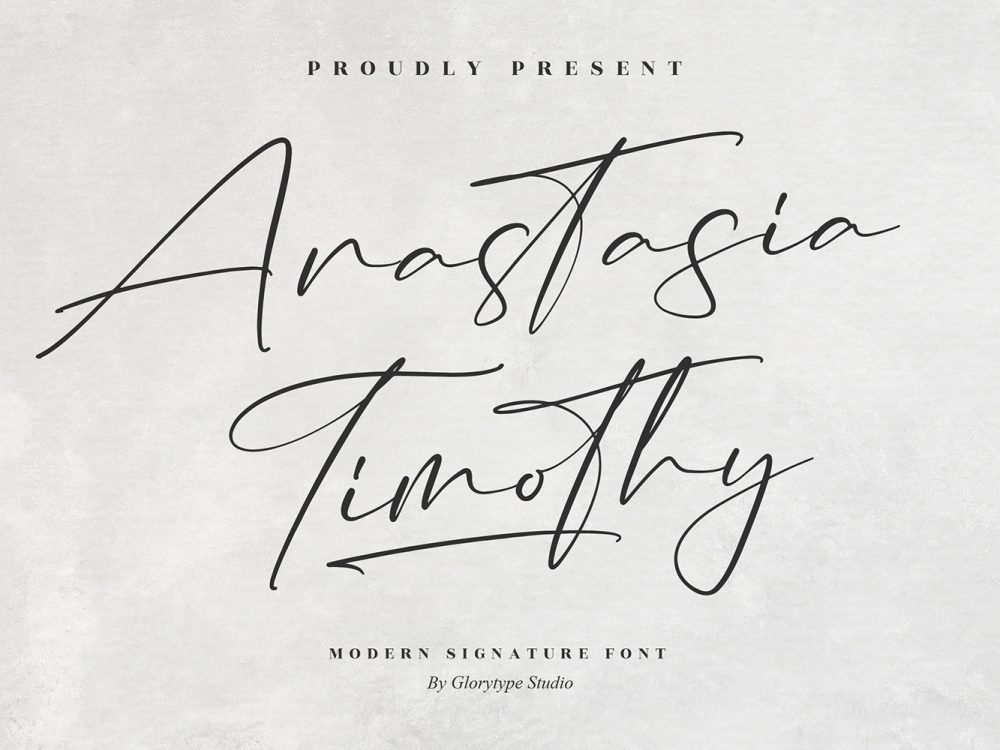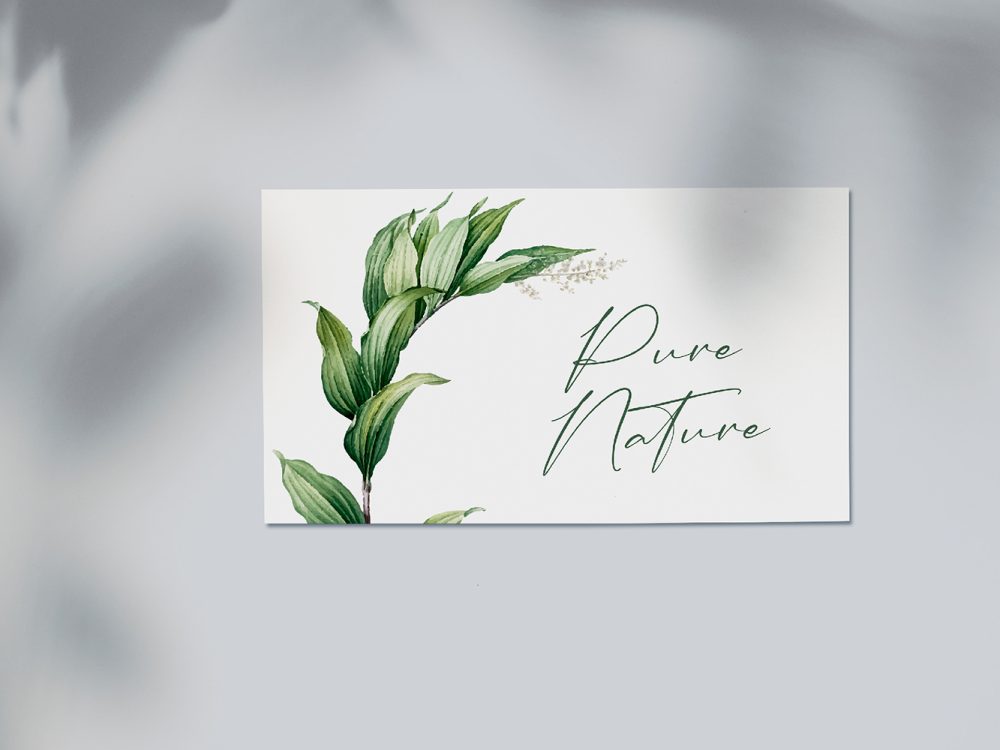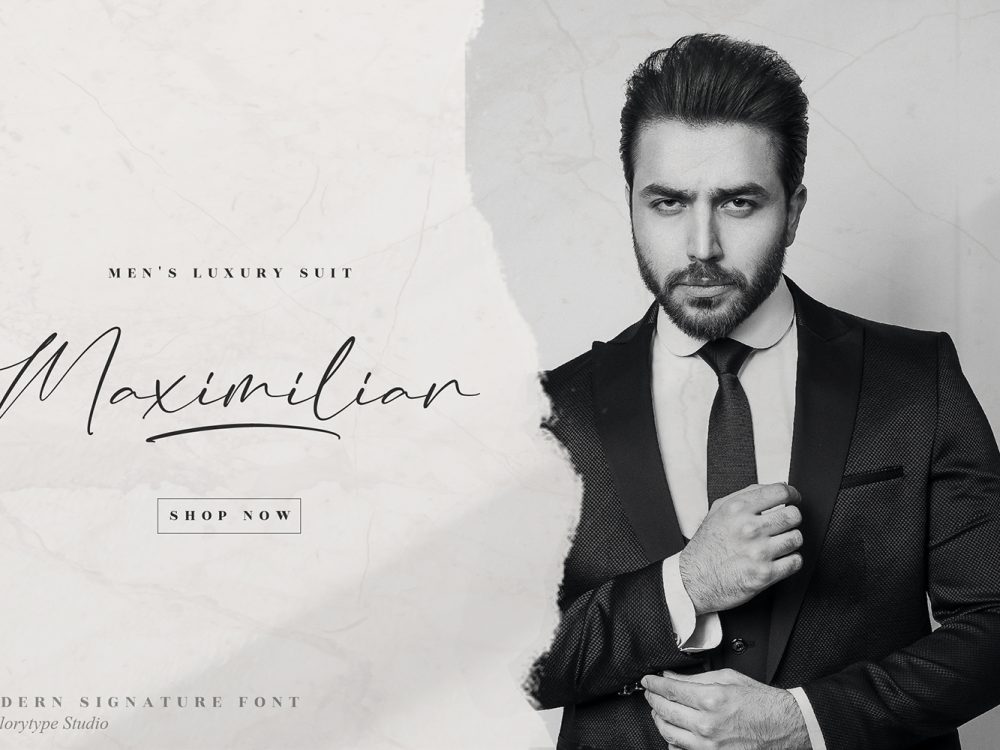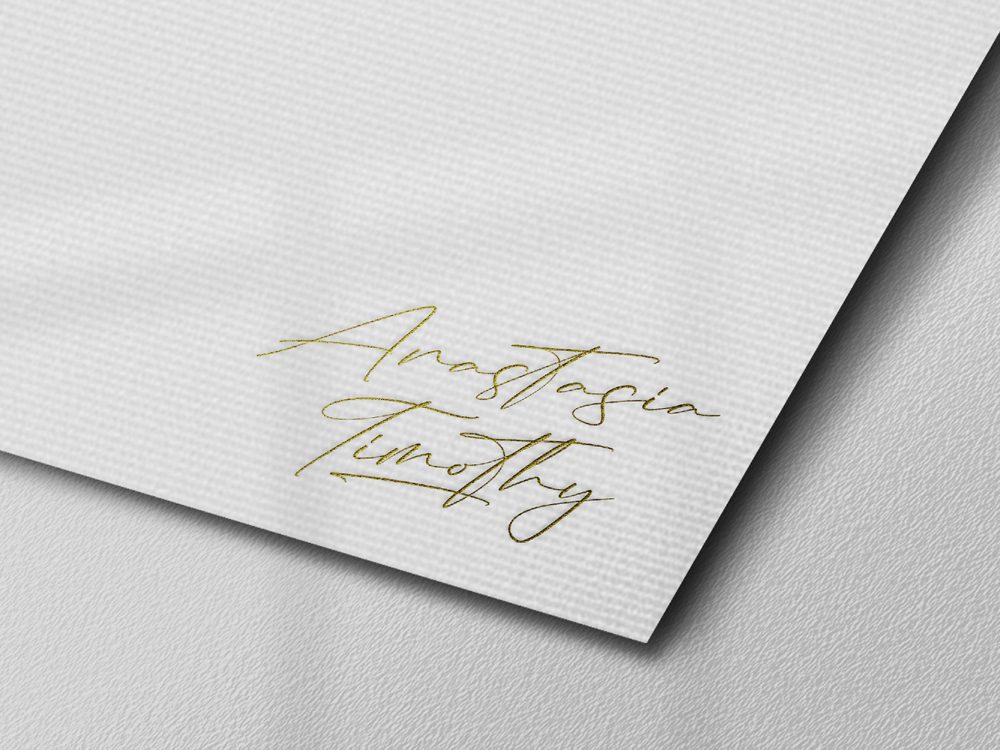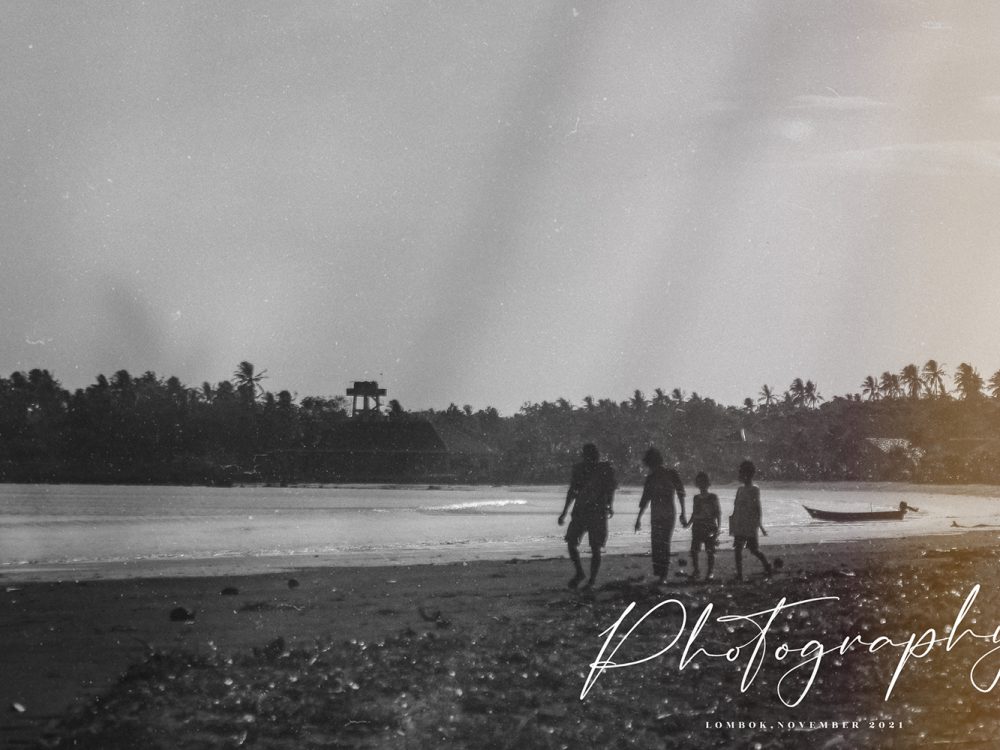
Anastasia Timothy Free Font
Experience the grace of Anastasia Timothy Free Font – a script font characterized by its slender lettering and delicate charm. With PUA encoding, accessing its array of stunning glyphs and ligatures is effortless. Infuse this font into your cherished creations with confidence and prepare to be captivated by the remarkable results it brings forth. If you like it don’t forget to check out the full version.